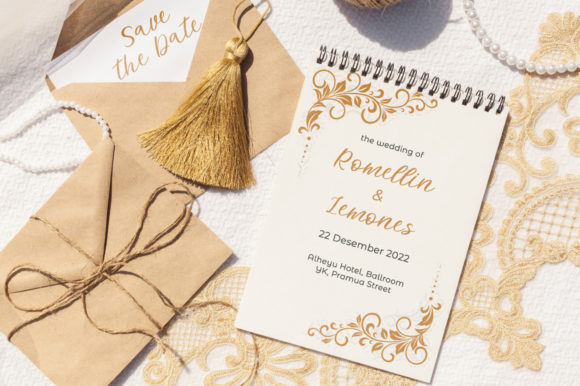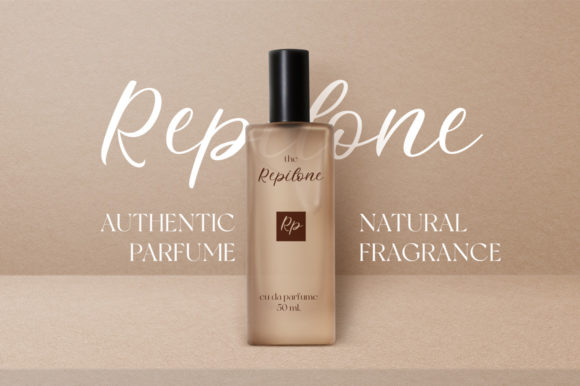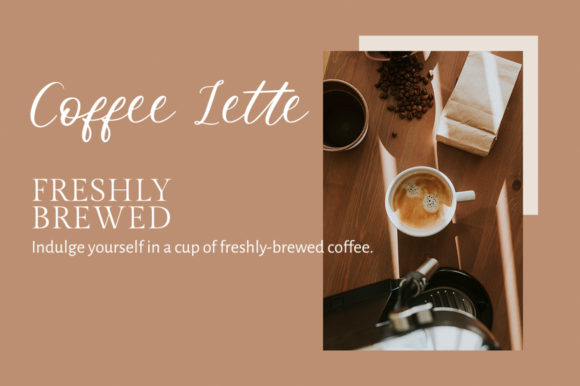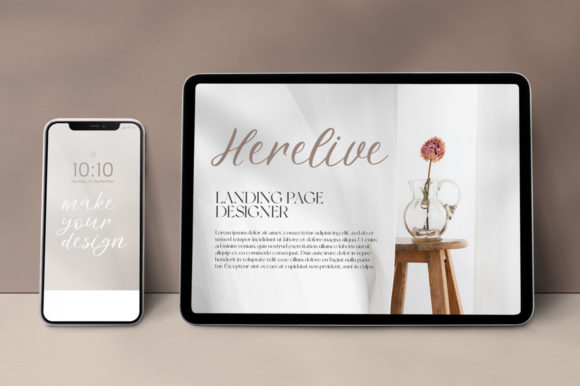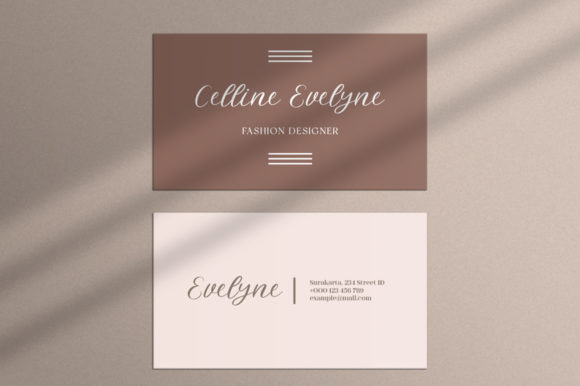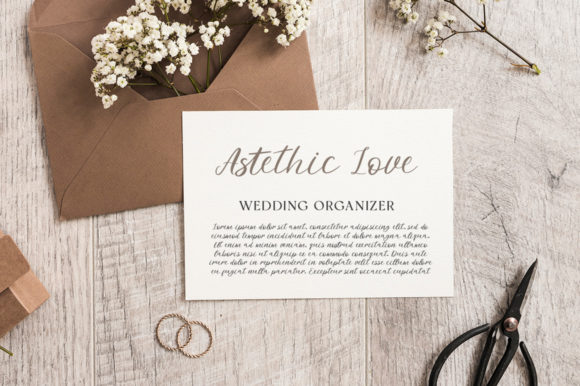
Introduction to Minettone Font
Minettone is a stylish and feminine handwritten font.
It includes amazing swashes which will add an elegant touch to your designs Add it to your most creative ideas, and notice how it makes them come alive.